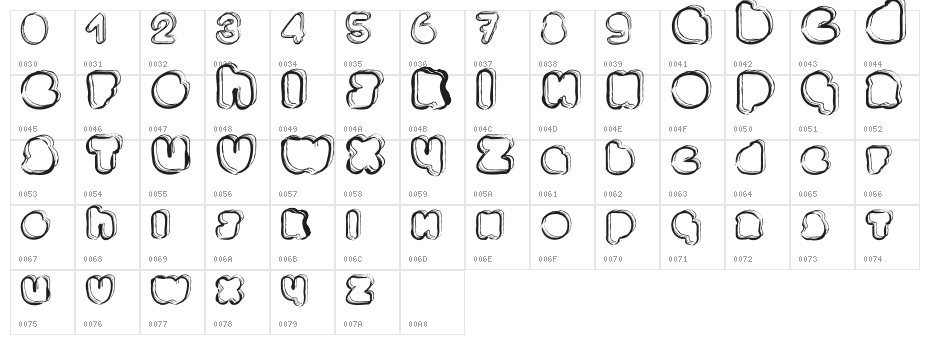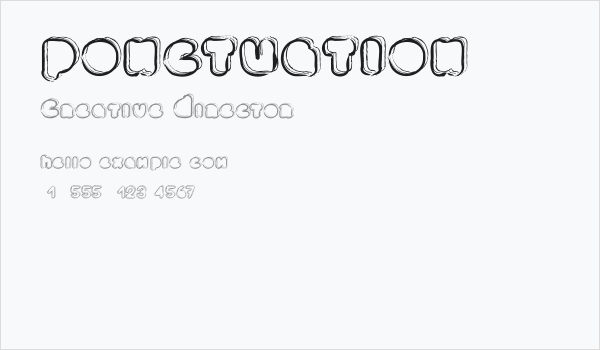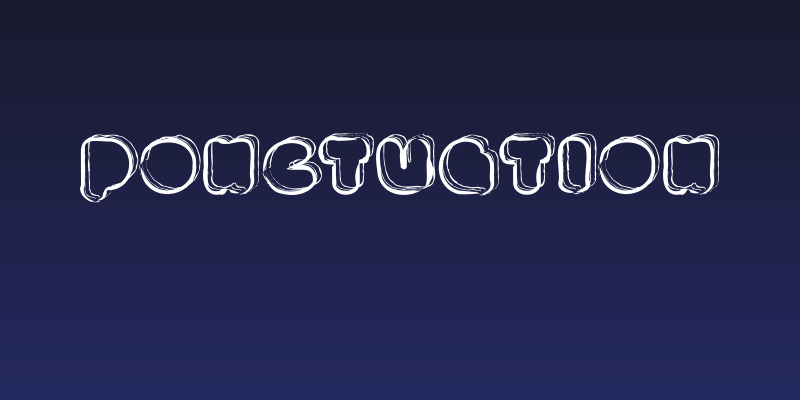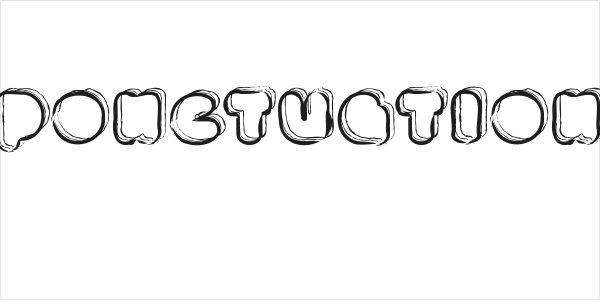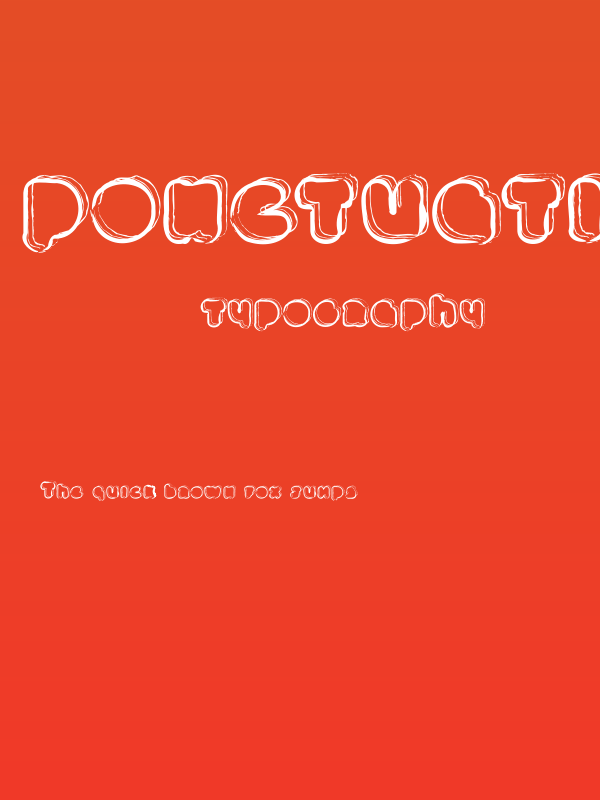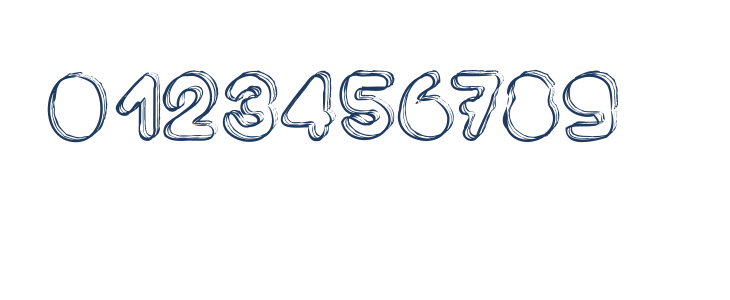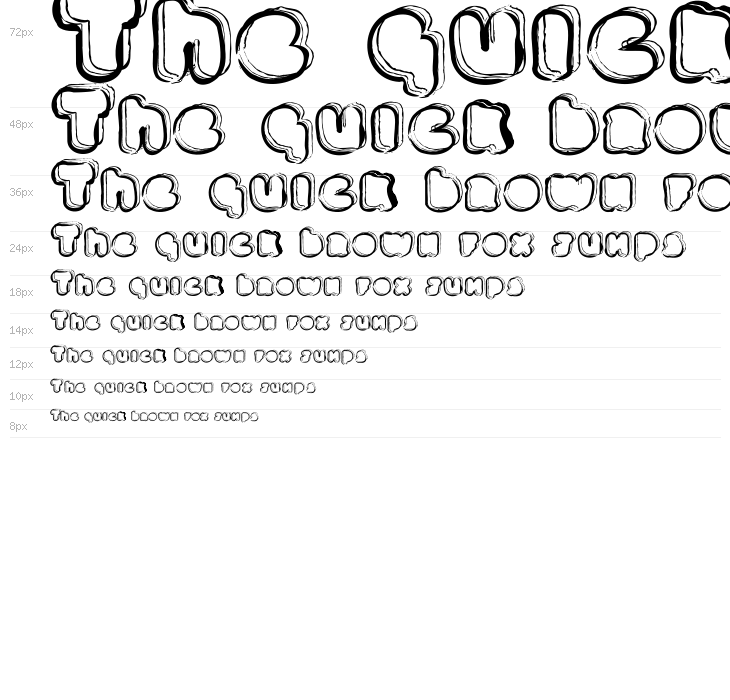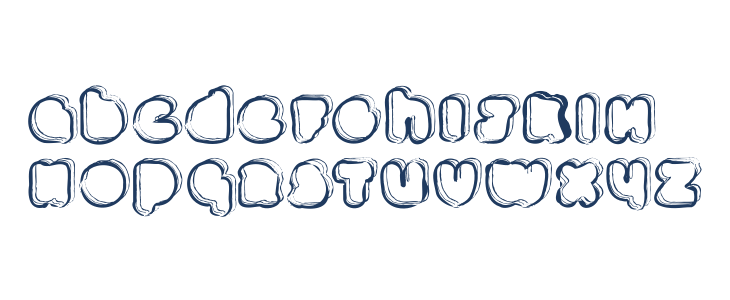
PONCTUATION Font
PONCTUATION Description
This font features a playful and artistic style with a bubble-like appearance. Each character is outlined with a thick, uneven stroke that gives it a hand-drawn feel. The letters are rounded and have a slightly irregular shape, adding to the whimsical and informal look. The numbers and special characters follow the same design principles, maintaining consistency across the font. This style is eye-catching and unique, making it suitable for creative and fun projects.
PONCTUATION UPPERCASE
PONCTUATION LOWERCASE
PONCTUATION OTHER CHARS